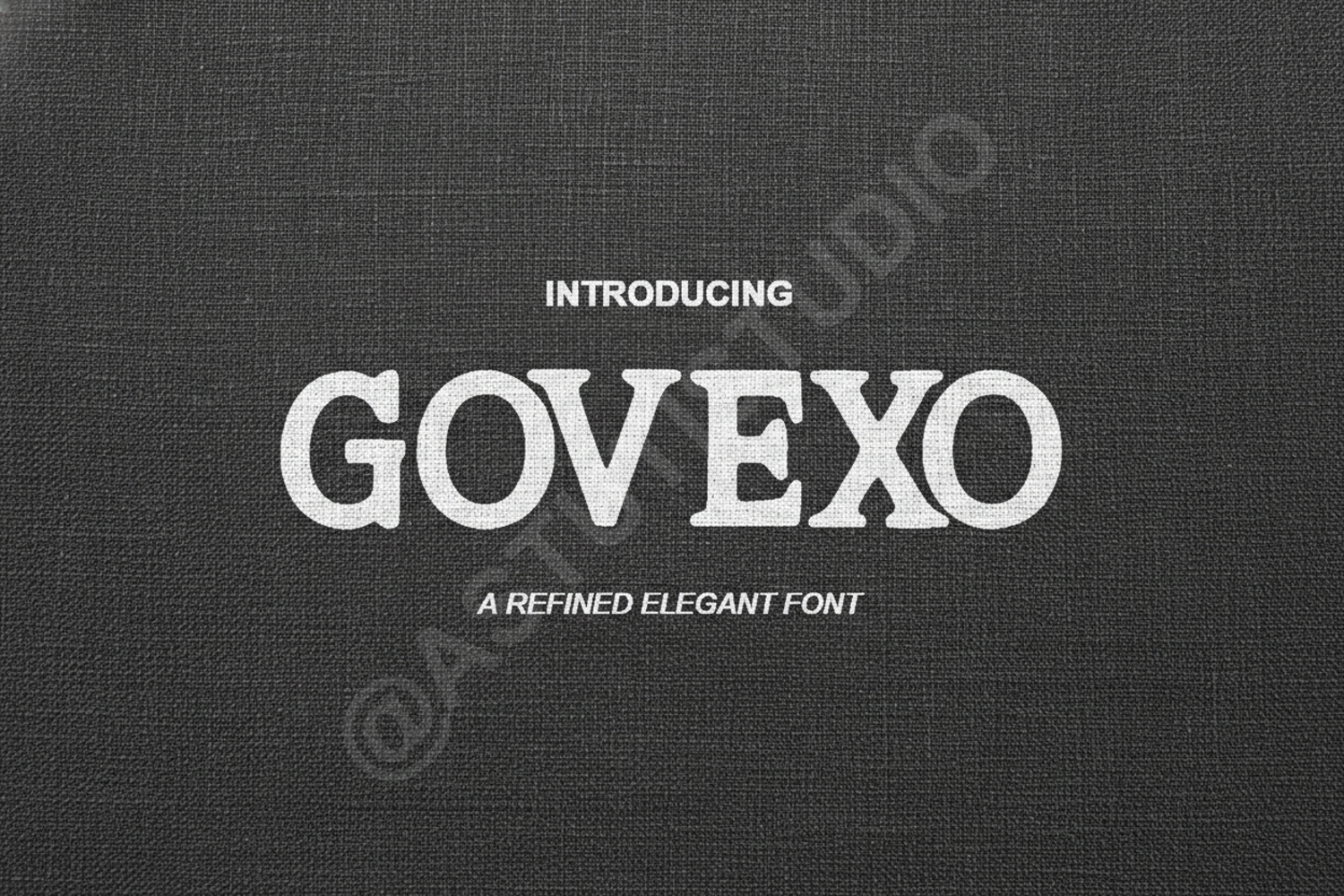
Govexo - Modern Geometric Sans Serif
Govexo
Elevate your creative projects with Govexo, a premium geometric sans serif font designed for maximum impact and modern aesthetics. Govexo combines clean, precise lines with a sophisticated contemporary feel, making it a versatile powerhouse for designers who demand excellence. Whether you are building a corporate brand from scratch or refining a high-end editorial layout, this font provides the clarity and character needed to stand out in a crowded market.
- Full character set including uppercase, lowercase, and numerals
- Standard punctuation and comprehensive multilingual support
- Branding and Logo Design: Create memorable visual identities with a professional, trustworthy touch.
- Editorial Layouts: Perfect for high-end magazines, fashion lookbooks, and corporate brochures.
- Social Media Graphics: Enhance your digital presence with bold, highly readable typography.
- Web Design: Optimized for legibility across all screen sizes and user interfaces.
- Packaging: Add a luxury feel to product containers, labels, and stationery.